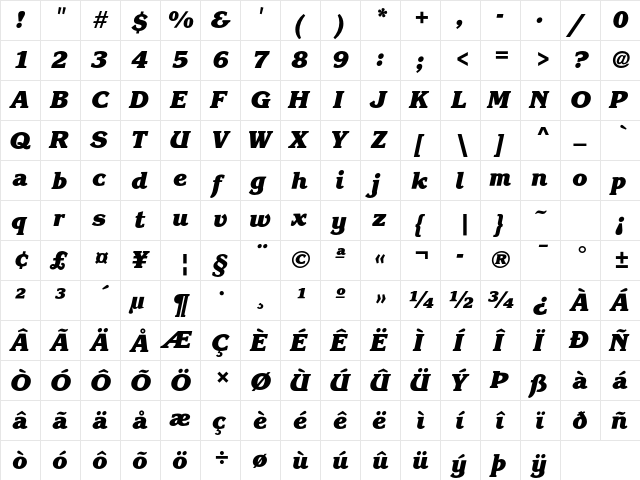
ITC Korinna Std Heavy Kursiv
| Designer | Edward Benguiat / Victor Caruso |
Design Context for ITC Korinna Std Typeface
ITC Korinna Std is a composed and adaptable typeface that performs quietly and consistently across a wide range of design contexts. Its italic angle brings a sense of urgency and motion to the letterforms.
Pro Tip: Try ITC Korinna Std for annotation and caption copy alongside an upright companion — the contrast in angle creates a dynamic but ordered typographic system.